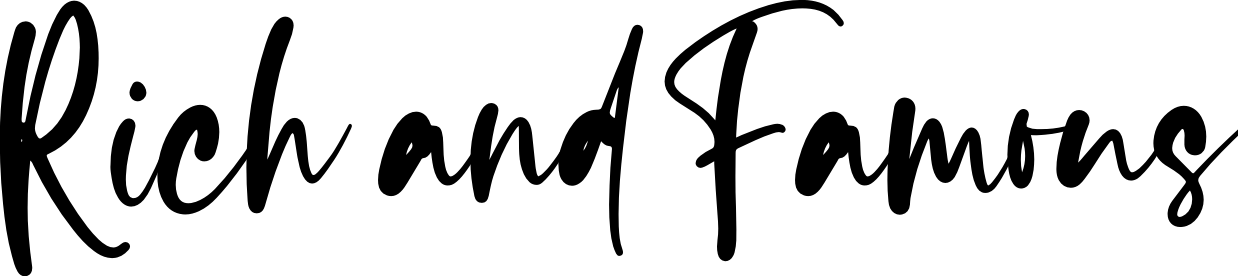
Rich and Famous
Rich and Famous is a dynamic and bold script font that stands out with its thick strokes and striking presence. This font commands attention, making it ideal for headings, logos, and any design project where you want to make a statement. Each letter is thoughtfully crafted, featuring smooth curves and edges that add to its sophisticated appeal. Despite its heft, the font maintains an elegant flow, ensuring readability without compromising its audacious style.
The uppercase letters are particularly powerful, with their exaggerated heights and confident strokes, perfect for creating a sense of grandeur and impact. The lowercase letters complement the uppercase with a more contained yet equally bold look, maintaining a balance that is visually pleasing. Numbers and special characters are included, bearing the same robust design, ensuring consistency across all elements of your text.
Rich and Famous is versatile enough to be used in various contexts, from luxury branding and editorial design to eye-catching advertisements and promotional materials. Its thick script style lends a sense of prestige and importance, making it a go-to choice for projects that require both flair and substance. In any application, Rich and Famous delivers a punch of personality while maintaining a polished and professional demeanor.